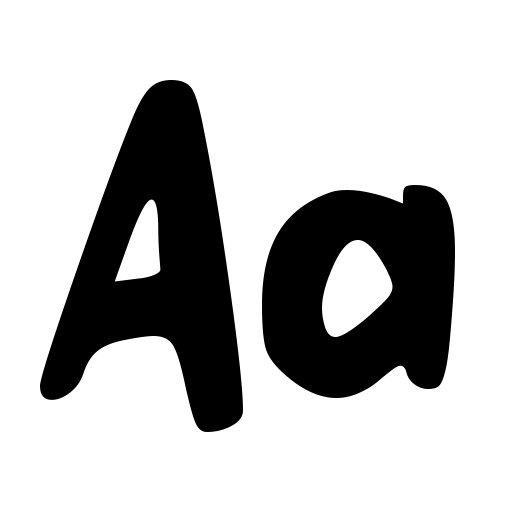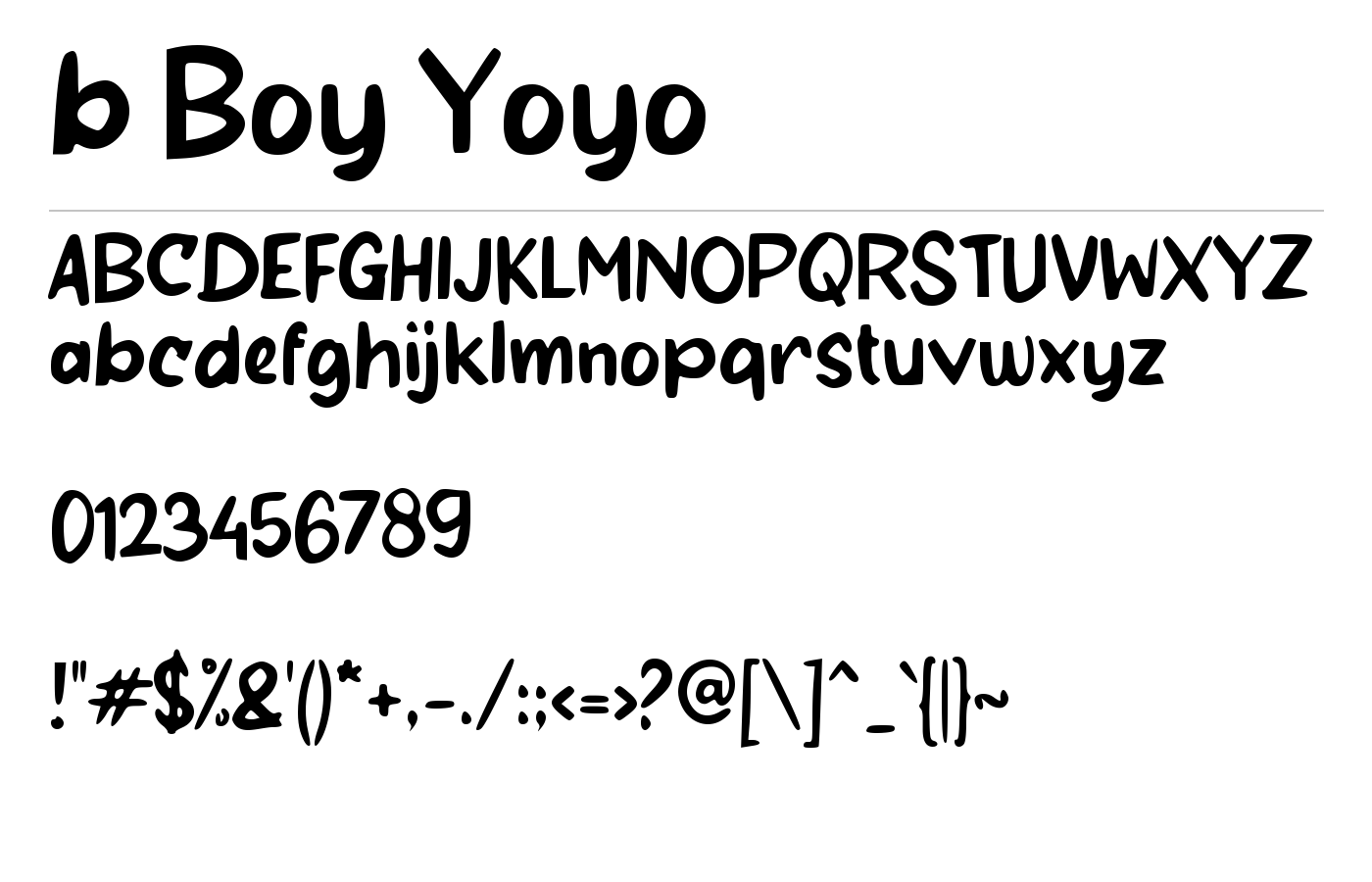
Boy Yoyo is a playful, casual sans serif font with a hand-drawn, slightly irregular style that gives it a friendly and approachable feel. Its rounded, bold letterforms with moderate x-height and smooth strokes make it ideal for informal designs, children's projects, or fun branding that seeks a warm, lively personality. This font works best for headlines, logos, and playful packaging where a cheerful and energetic vibe is desired.
b Boy Yoyo Font
About b Boy Yoyo Font